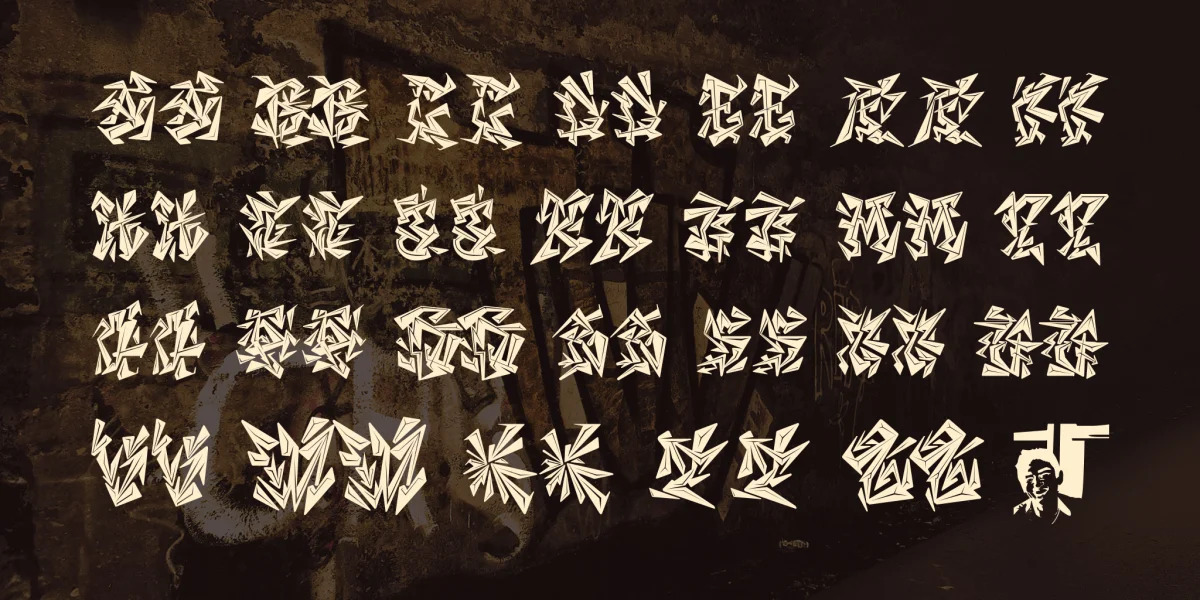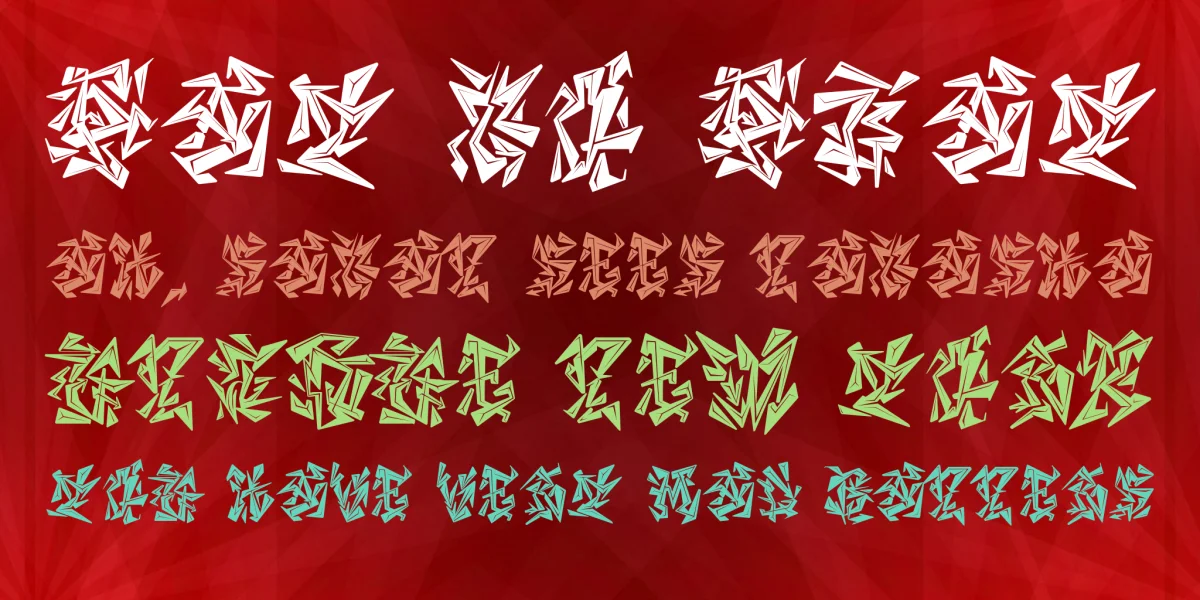
Let me say this. Most folks who use fonts, needed for their commercial projects. the basic rules of their fonts is legibility and style. Each industry need its own resource of font and to that end, this font can only offer a very very small niche. This is a graffiti font. that focus on style not legibility like most "real" graffiti fonts. so this leads to the question what happen when typeface is no longer a typeface but a pattern or illustration or texture? and how do you use this font?
First of all, I'm not the first to do this. Ever since there are typefaces, there are people experimenting with the boarder between texture and type or illustration and type. I'm no different. Second this font was design to be use as an texture with a graffiti look. another words dingbats in graffiti text that is not legibility. so if you need a background texture or a boarder that needs a feel of graffiti this may work. that is the intention for this font.